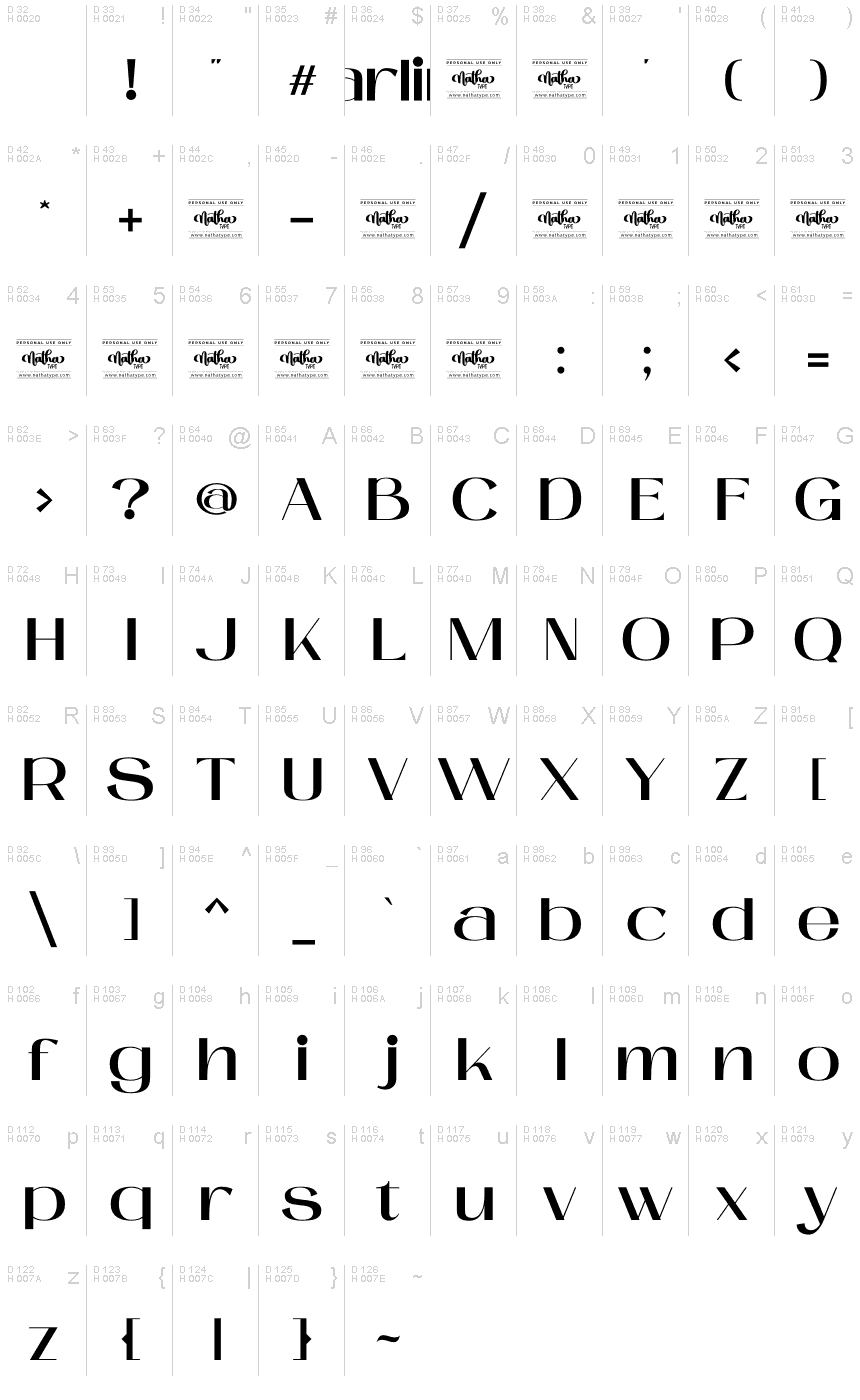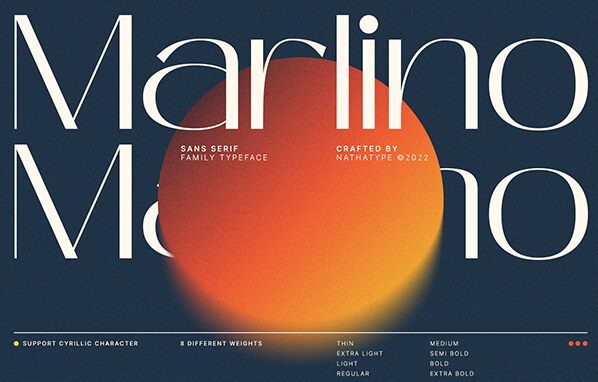
Marlino Regular Personal Use
Marlino, crafted by Din Studio, is a captivating sans serif font that exudes elegance and sophistication. With its semi-light weight and expanded width, Marlino lends a touch of modernity to any project.
Its clean lines and open spacing make it perfect for professional websites, fashion magazines, or sleek corporate branding. Let Marlino elevate your designs with its versatility - from editorial layouts to product packaging, this font will effortlessly captivate your audience with its refined charm.